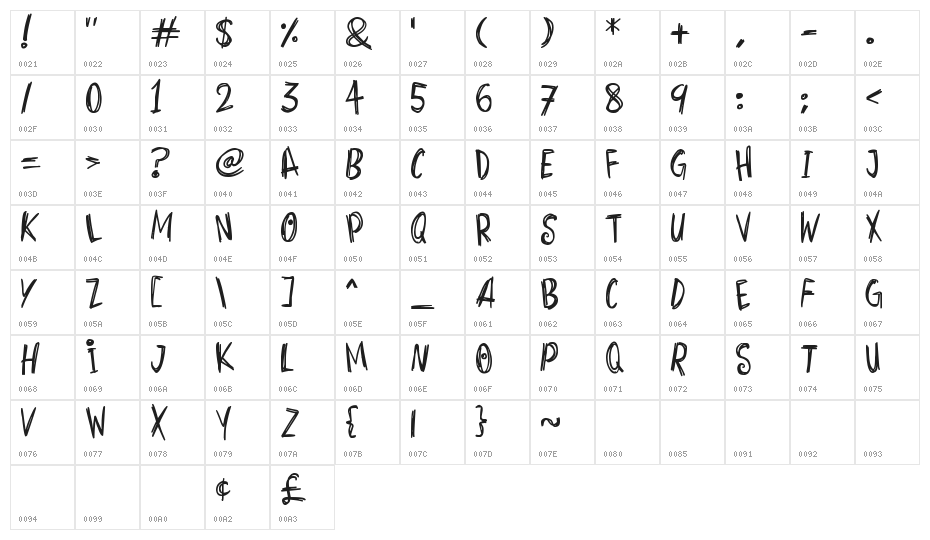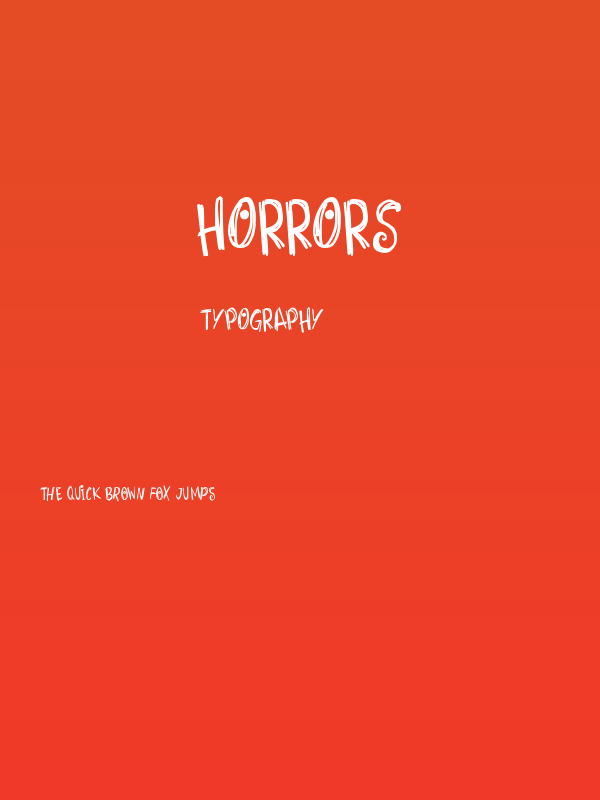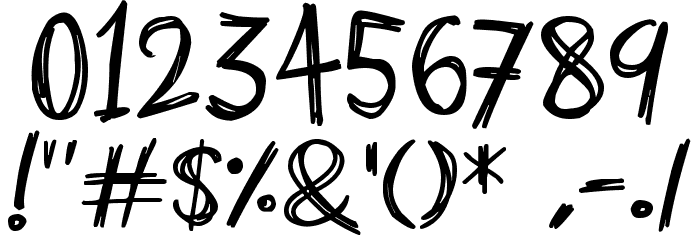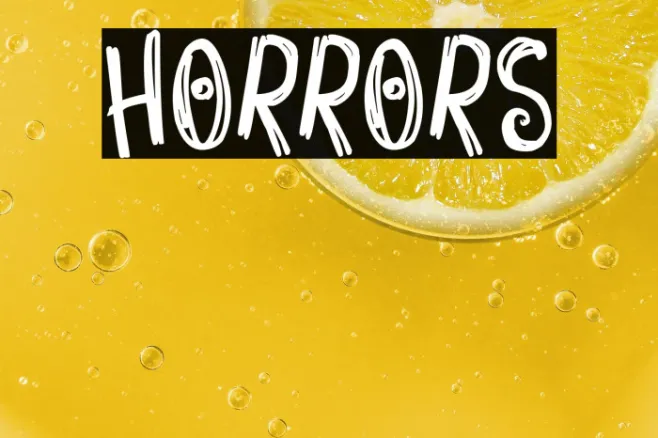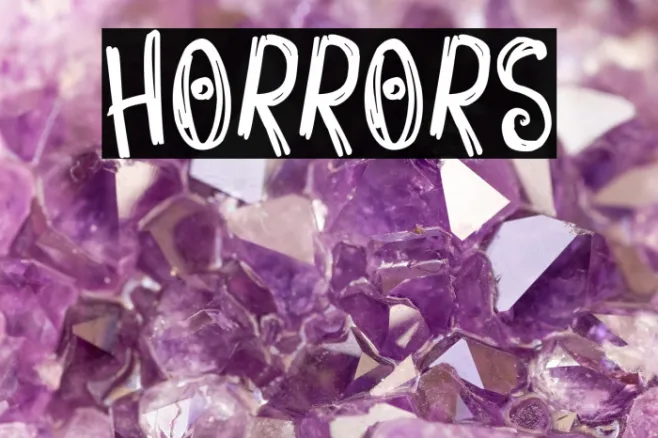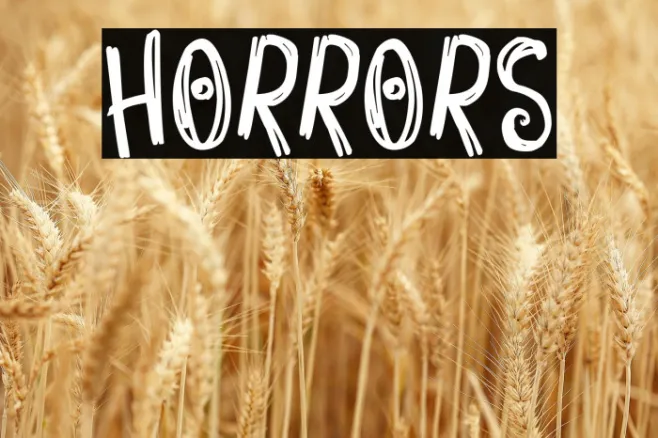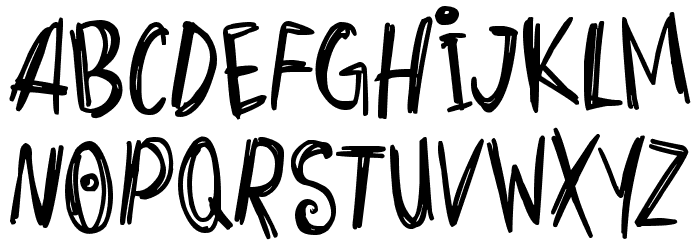
Horrors Font
Horrors Description
This font features a bold, hand-drawn style with an energetic and slightly chaotic appearance. The letters are uneven and irregular, giving it a playful and spontaneous feel. The strokes are thick and vary in width, adding to the dynamic look. The characters are slightly slanted, contributing to the sense of movement and excitement. The font includes both uppercase and lowercase letters, numbers, and a variety of special characters. Its unique style makes it stand out, perfect for projects that require a touch of creativity and fun.
| Use Case | Headlines, Posters, Creative Branding |
| Proposed Projects | Ideal for Halloween-themed designs, posters, children's book covers, and creative branding projects. |